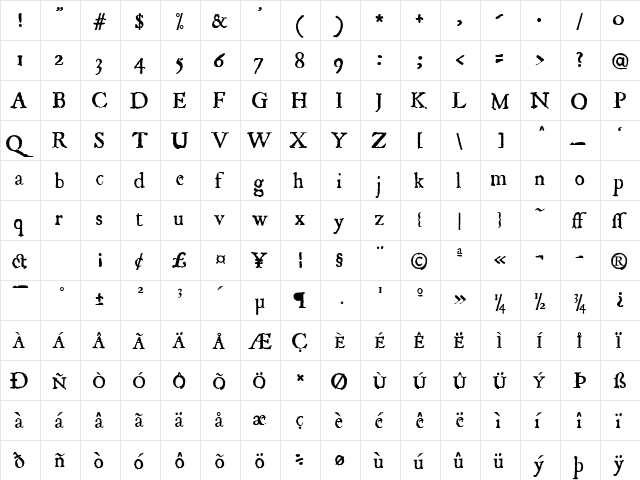
JSL Ancient Normal
Design Context for JSL Ancient Typeface
JSL Ancient is a composed and adaptable typeface that performs quietly and consistently across a wide range of design contexts.